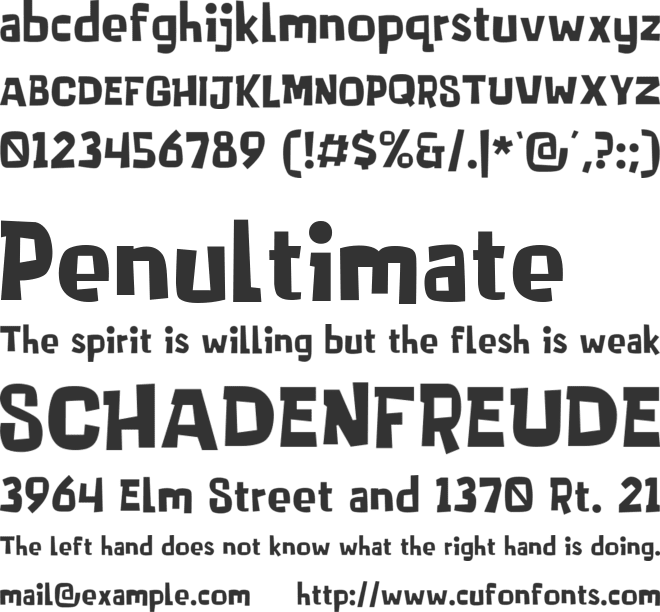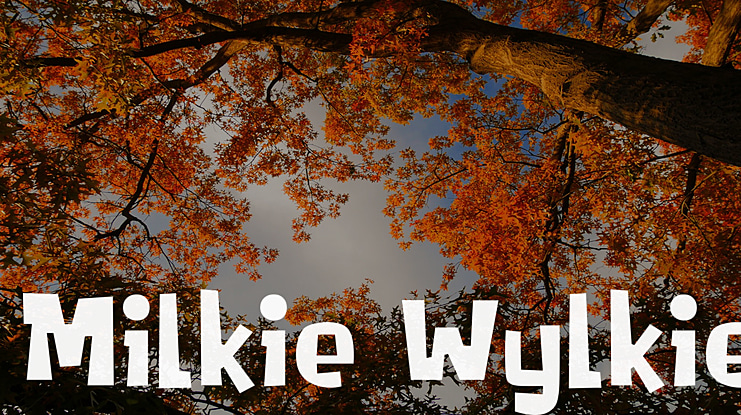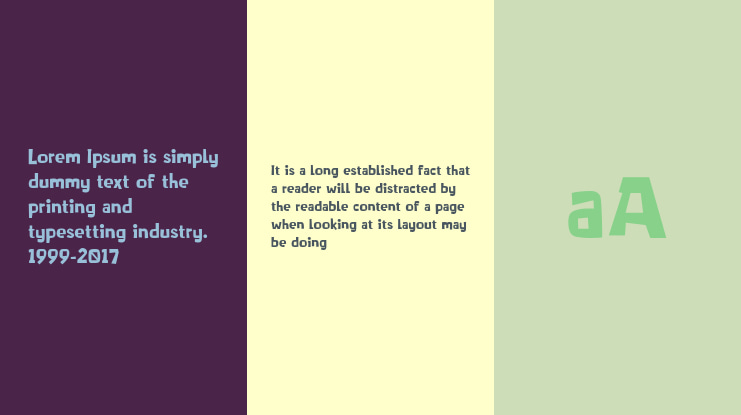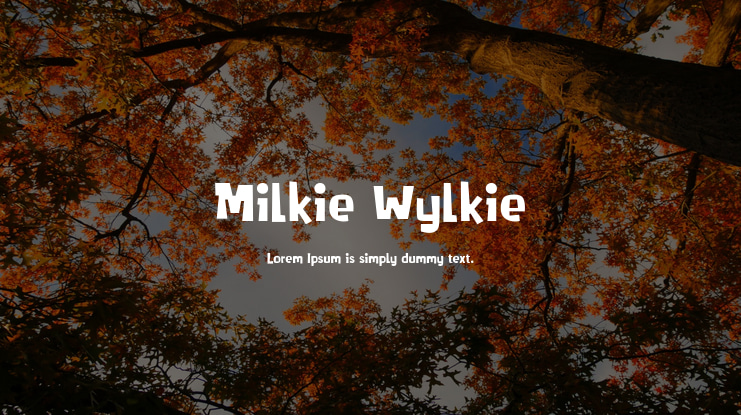
Milkie Wylkie Font Family
Rendy Yanwar
Milkie Wylkie is a doodle display typeface. The imperfect and asymmetric shapes make this typeface looks more fun to use. This casual typeface can give a playful ambient to titles, quotes, taglines, etc.
Milkie Wylkie font preview